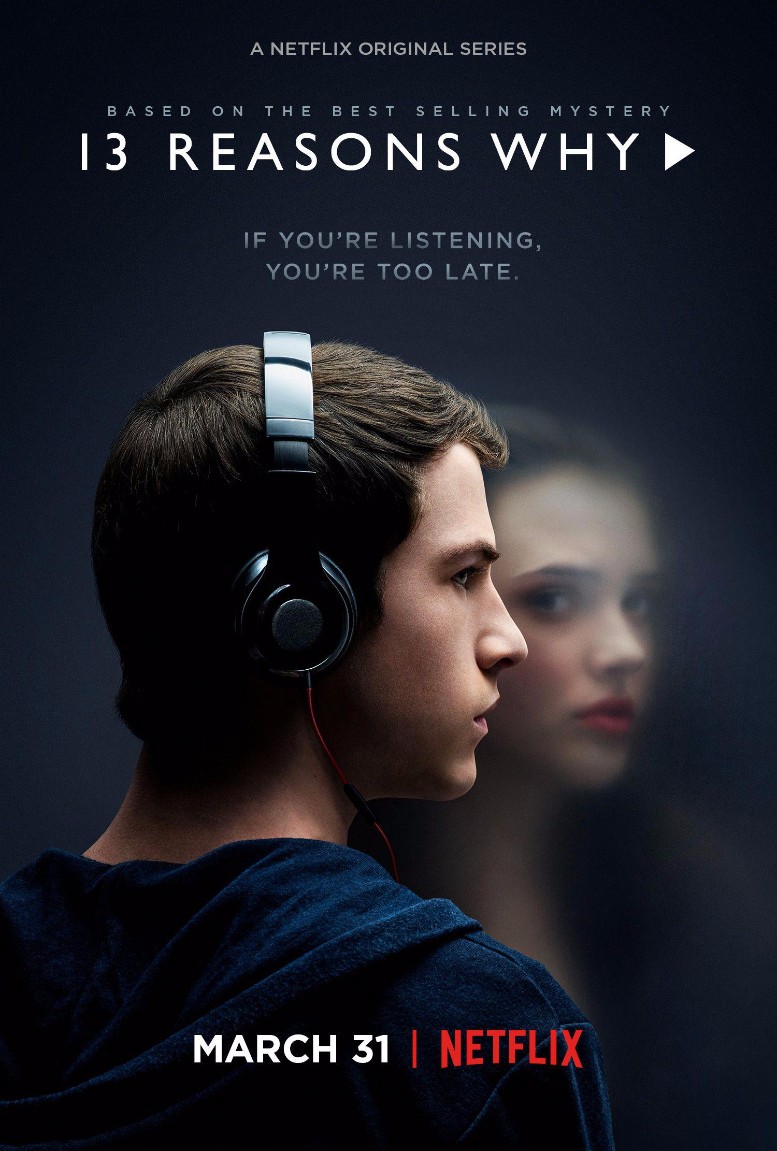
13 Reasons Why Font
Drama13 Reasons Why is a Netflix original series that follows the story of a high school student, Hannah Baker, who leaves behind 13 tapes explaining why she took her own life.
The film title on the poster uses Gill Sans Roman font, designed by Eric Gill in 1926. It's a humanist sans serif font inspired by the "Johnston" typeface.